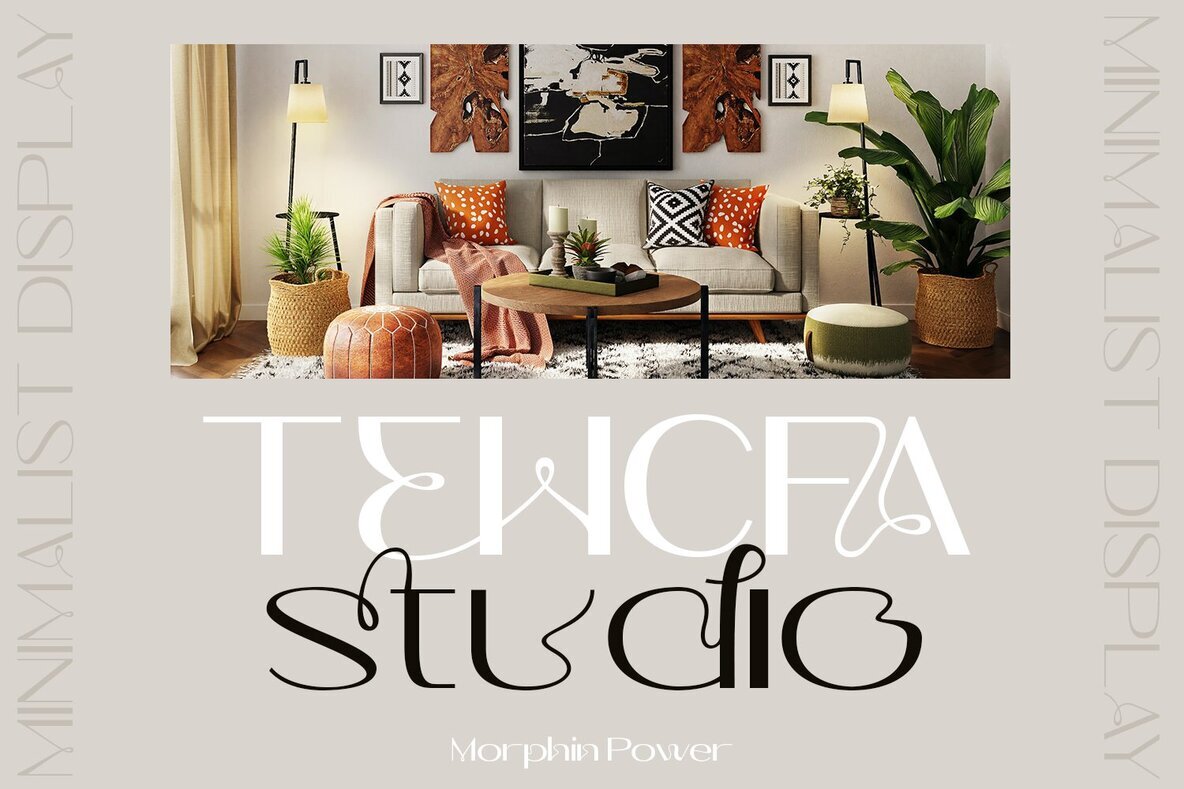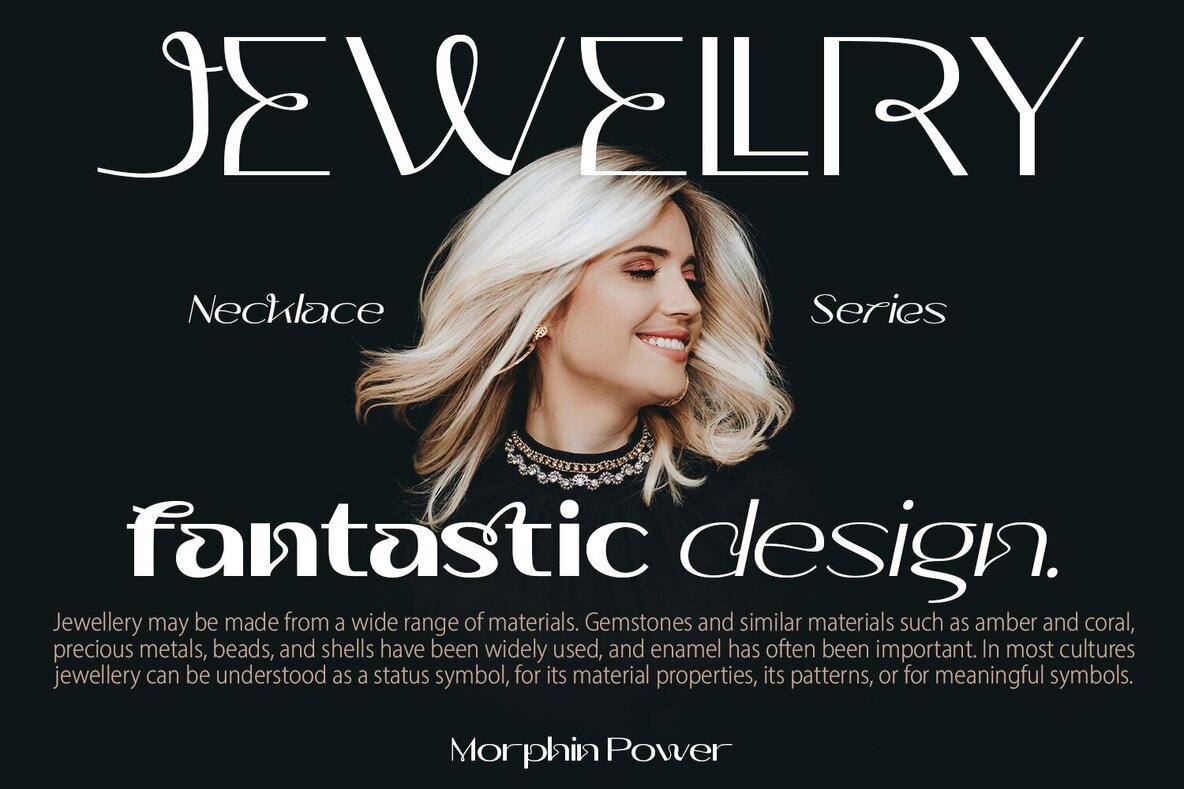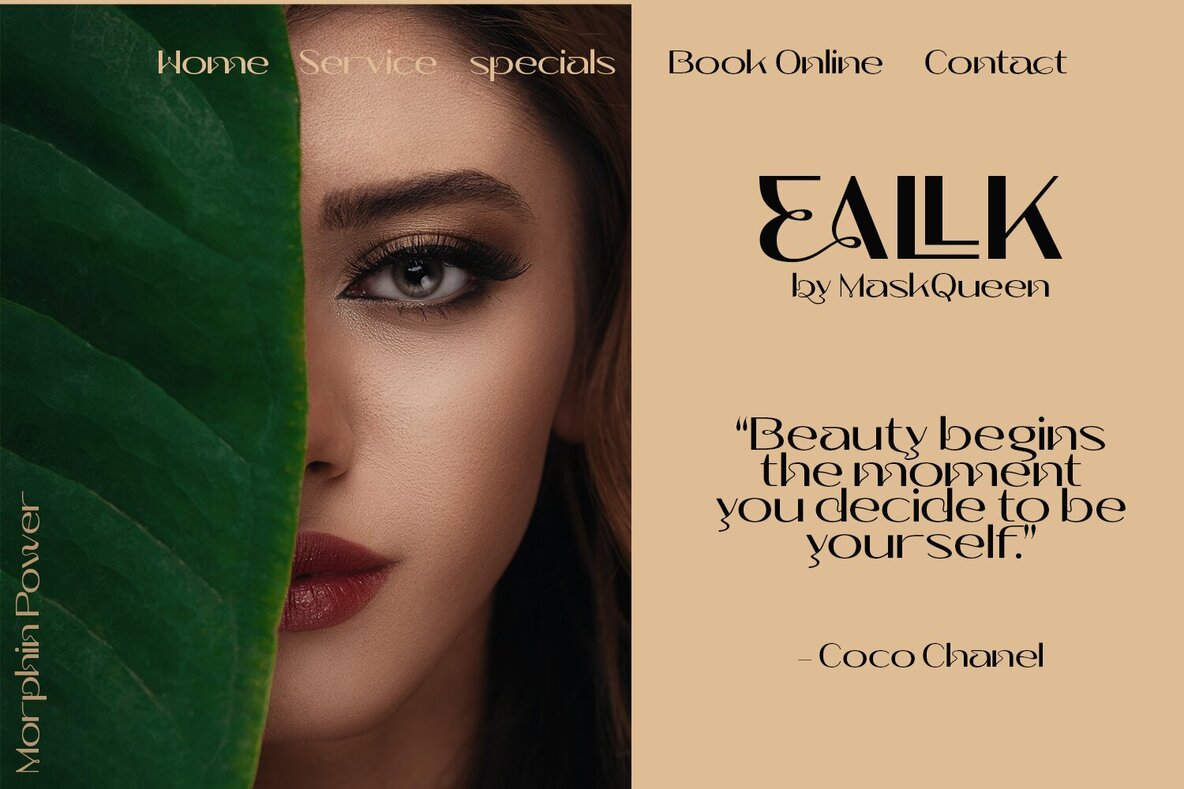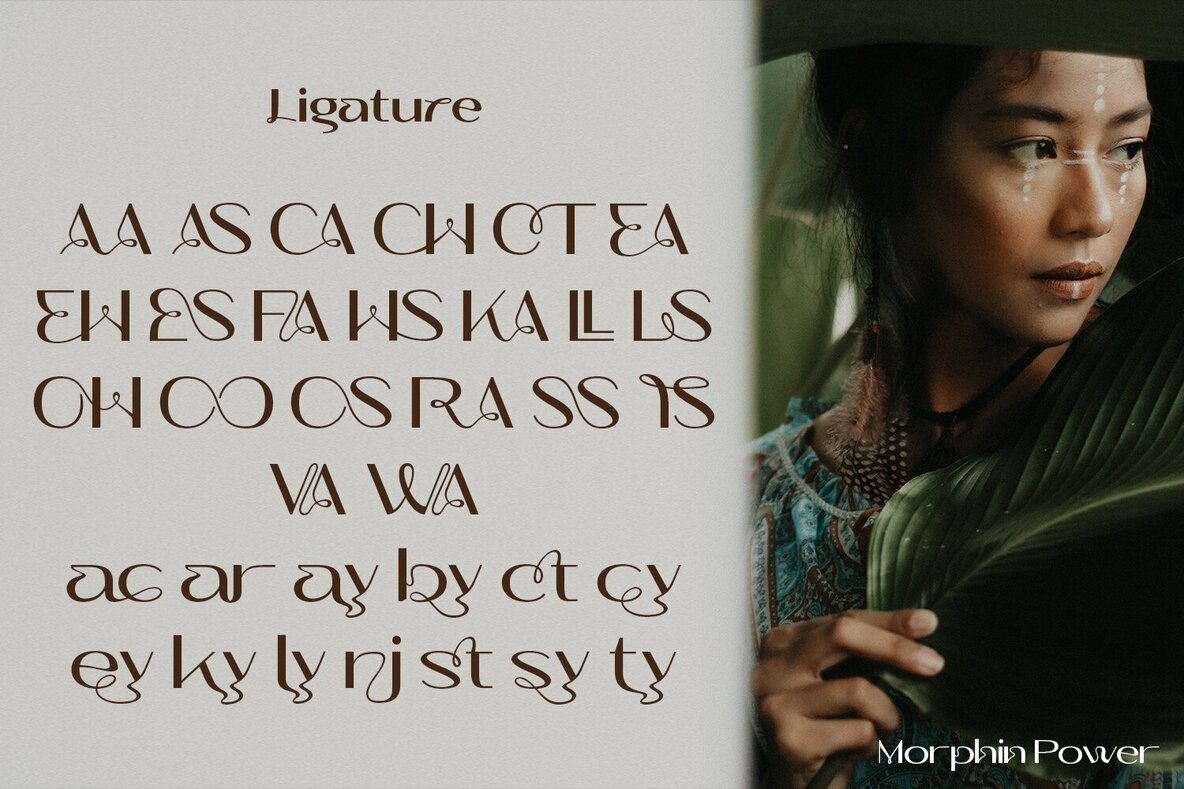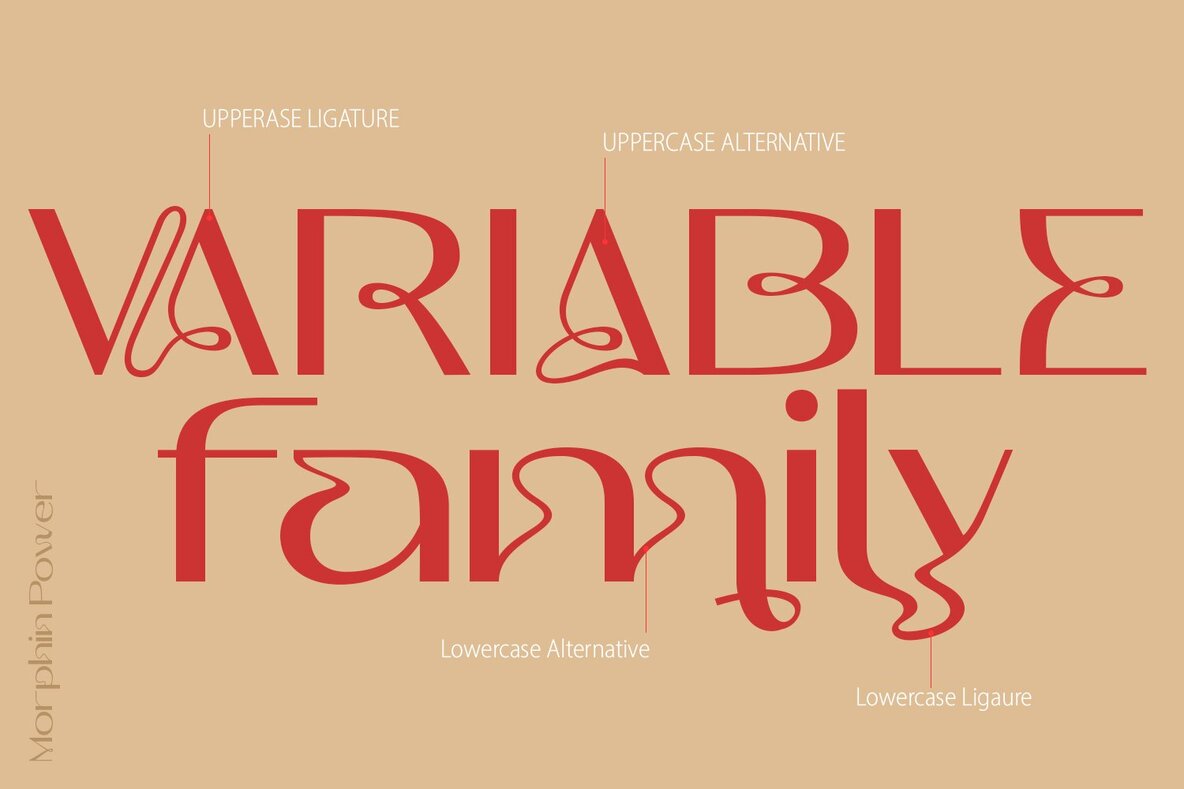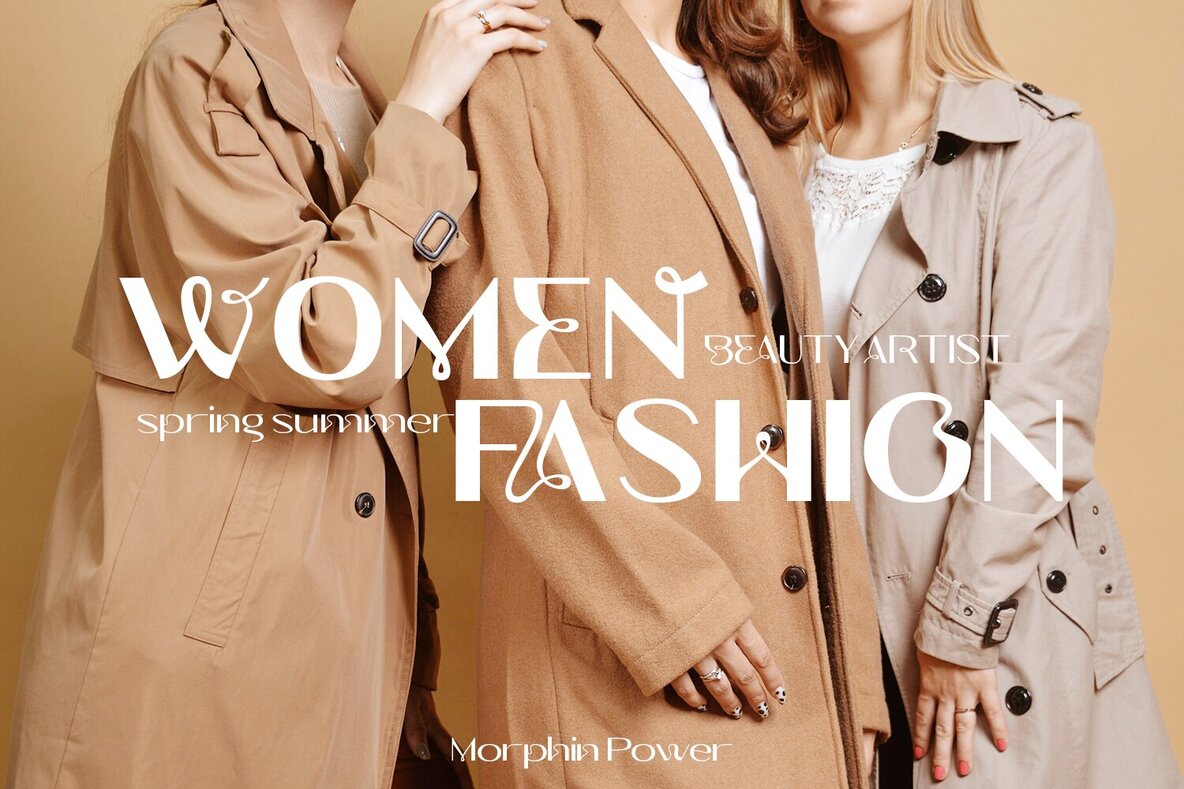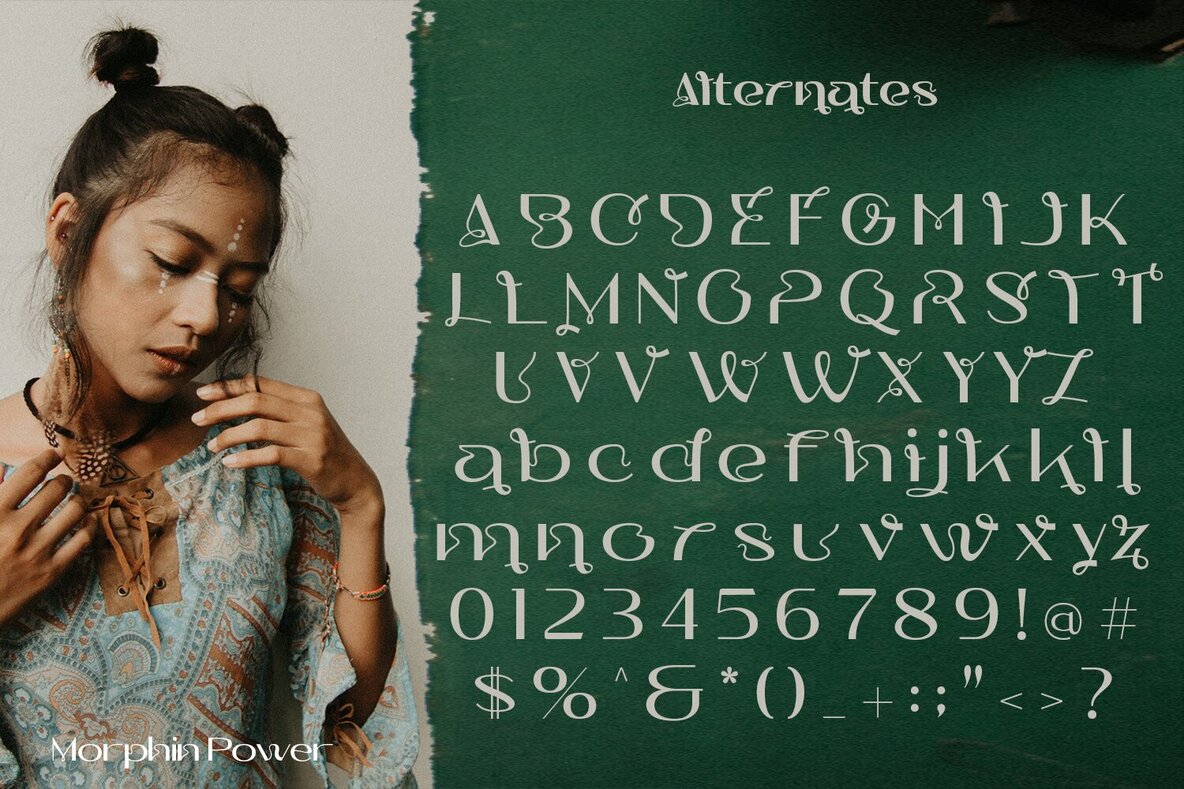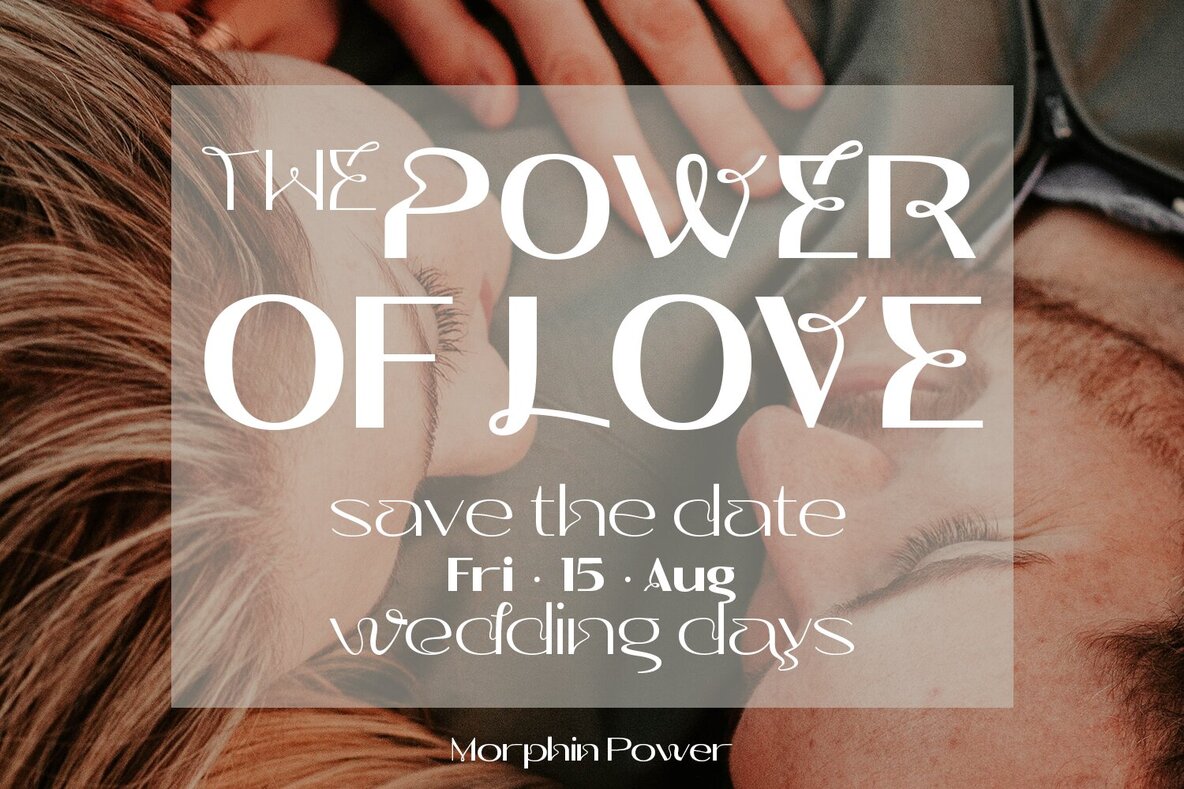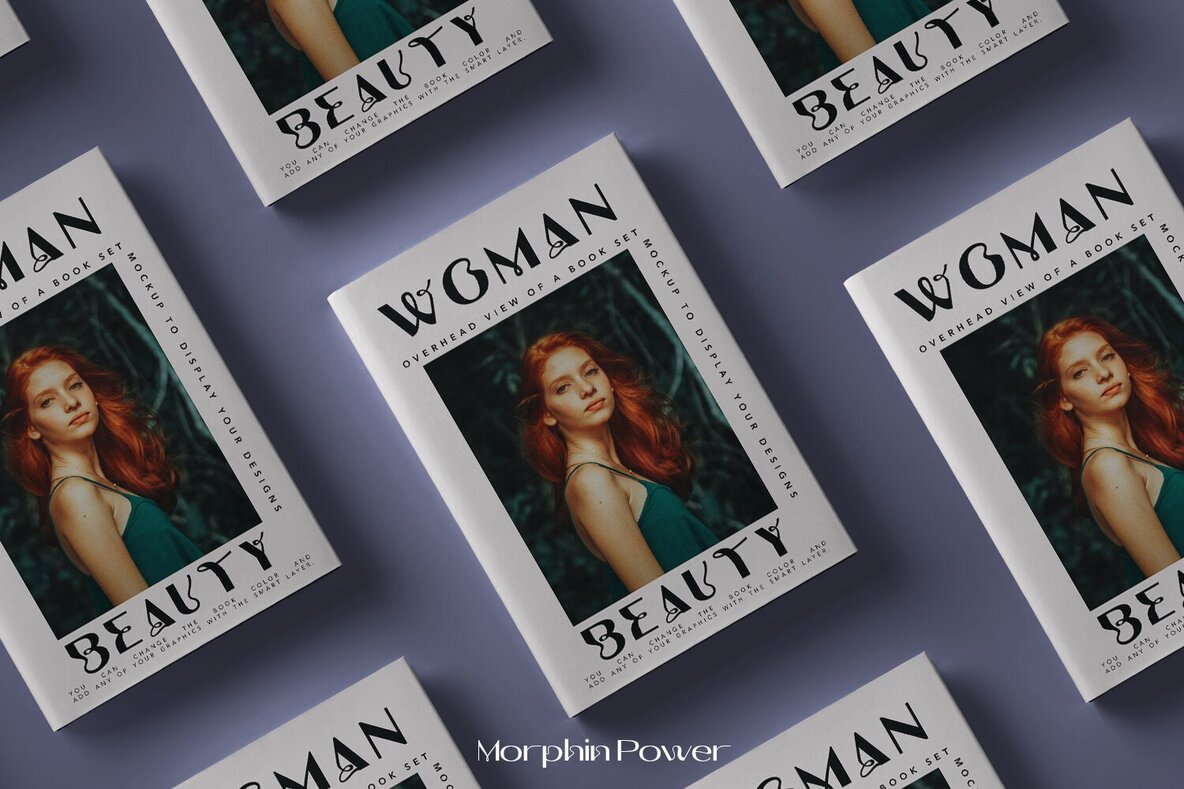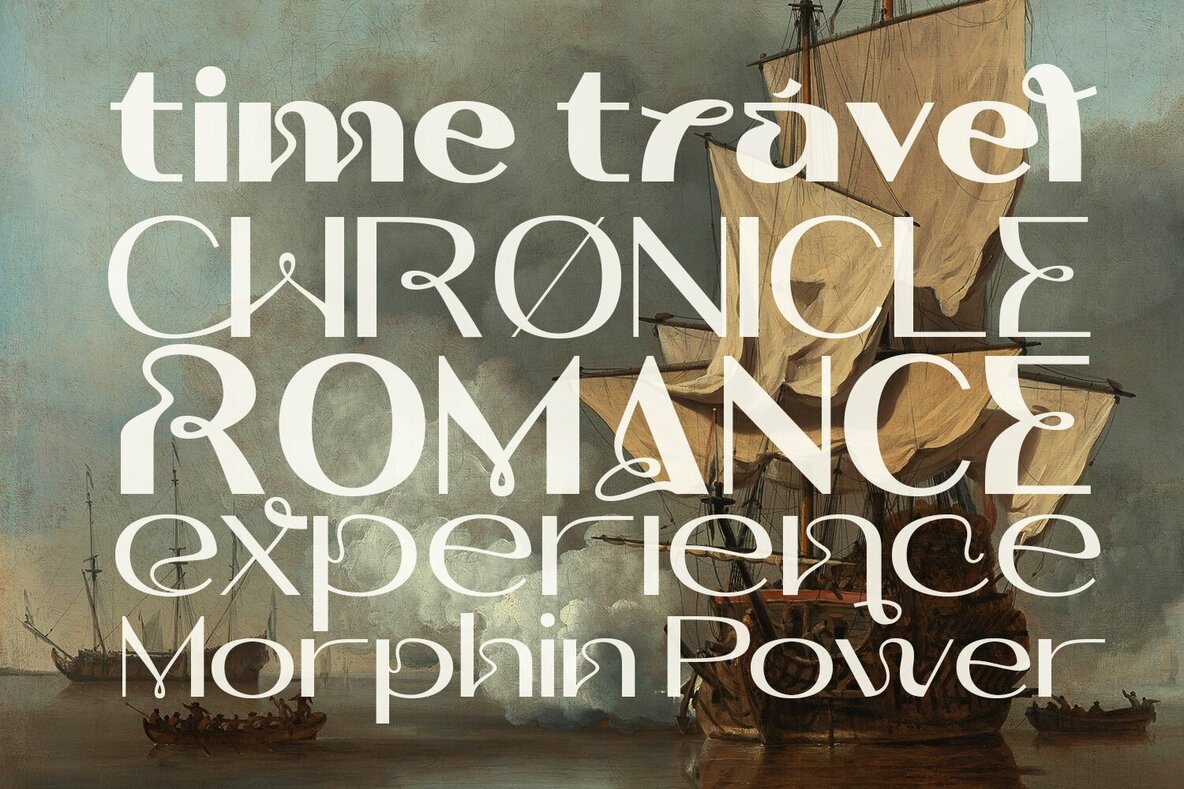
Morphin Power Font
Morphin Power by Type Class Heroes stands as a versatile modern display typeface, distinguishing itself with an array of alternative styles and ligatures. Its adaptable design integrates variable width and weight, allowing designers to create rhythm and texture that enhance readability. This typeface supports languages including Danish, English, Finnish, French, German, Norwegian, Portuguese, Spanish, and Swedish, making it an ideal choice for global projects. The variable version of Morphin Power offers extensive design possibilities, adapting seamlessly to various composition needs. Suitable for a wide range of applications, it is perfect for branding, product packaging, invitations, quotes, t-shirts, labels, posters, and logos.Morphin Power: A Variable Modern Display Typeface